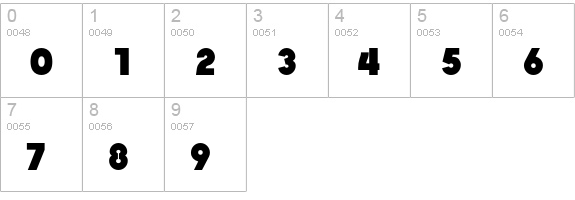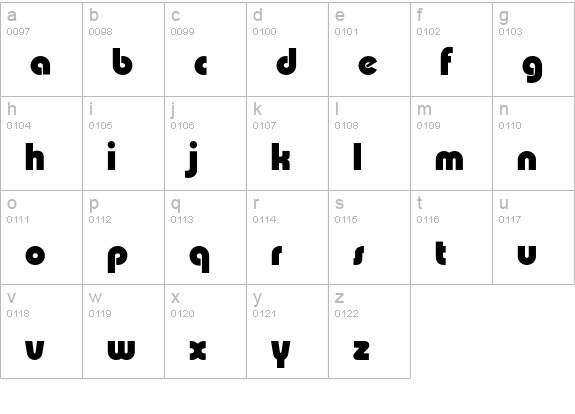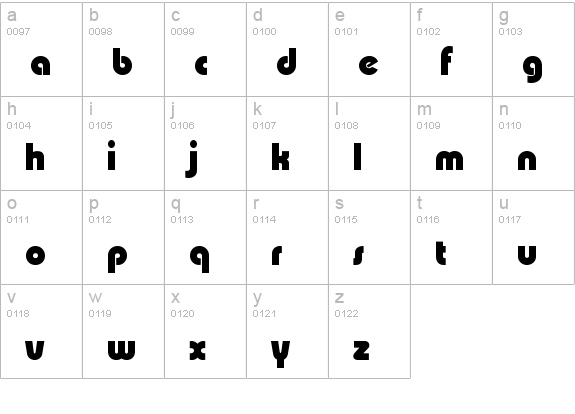
ExpressaEF-Heavy Font Details
ExpressaEF-Heavy is a heavy, high-impact variant in the ExpressaEF typeface family \xE2\x80\x94 well suited to high-impact headlines, posters, and display advertising.
ExpressaEF-Heavy is a bold and striking font that exudes strength and confidence. With its thick strokes and sharp edges, this typeface commands attention and adds a touch of modernity to any design project. Whether used for headlines, posters, or branding materials, ExpressaEF-Heavy makes a powerful statement. The best part? ExpressaEF-Heavy is completely free to download at FontsMarket.com. This means that you can easily access this impactful font without any cost, making it a valuable asset for designers and creatives looking to enhance their work with a bold and impactful typeface. Don't miss out on the opportunity to elevate your designs with ExpressaEF-Heavy - download it for free today!